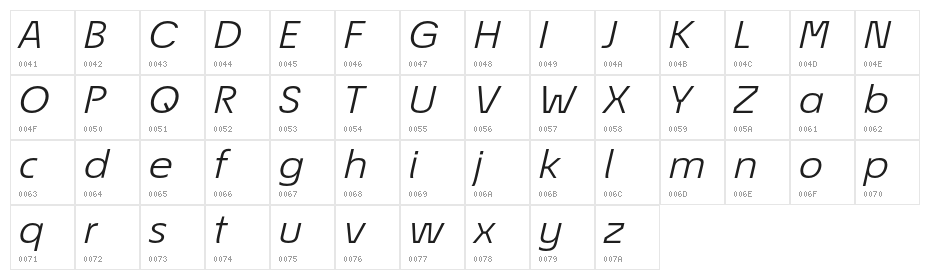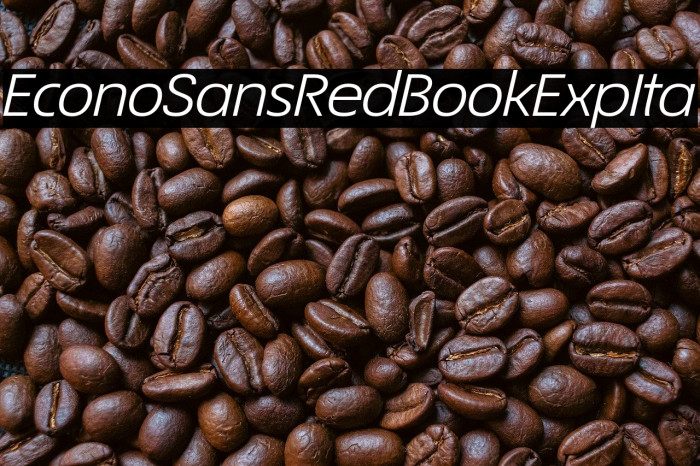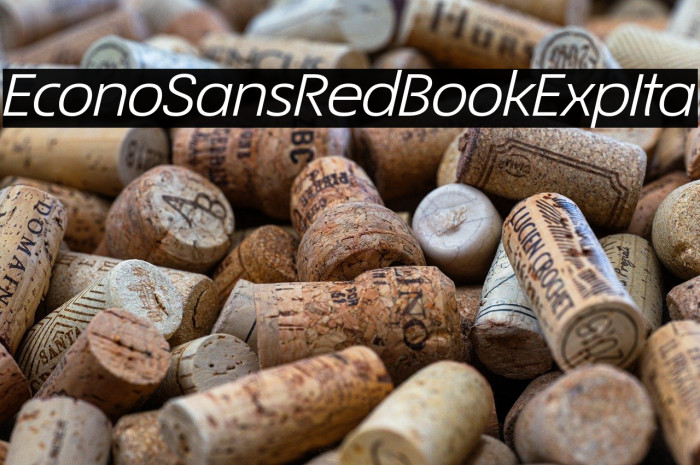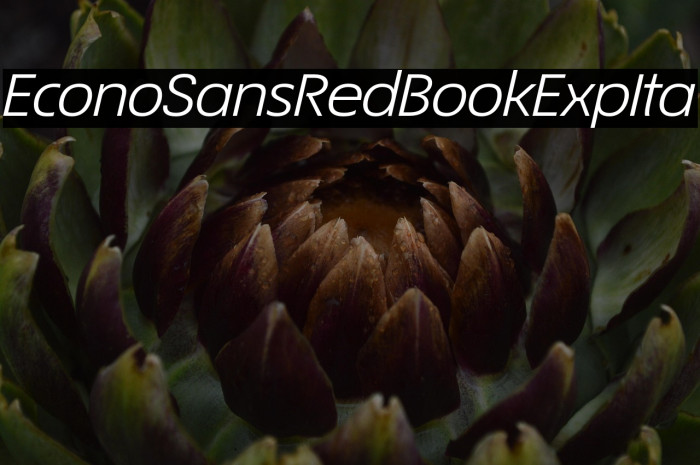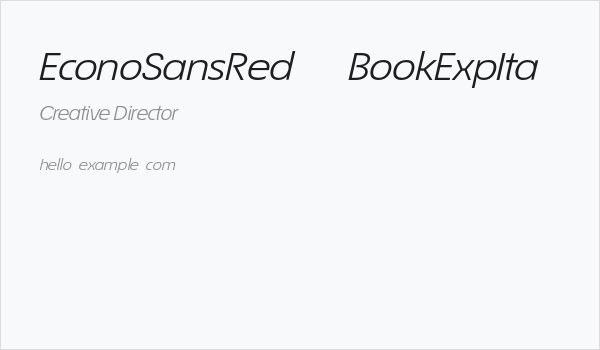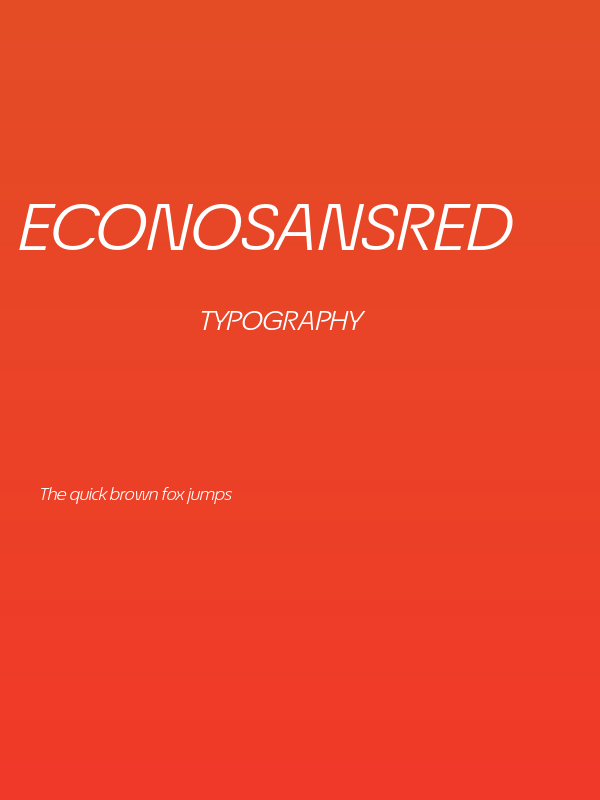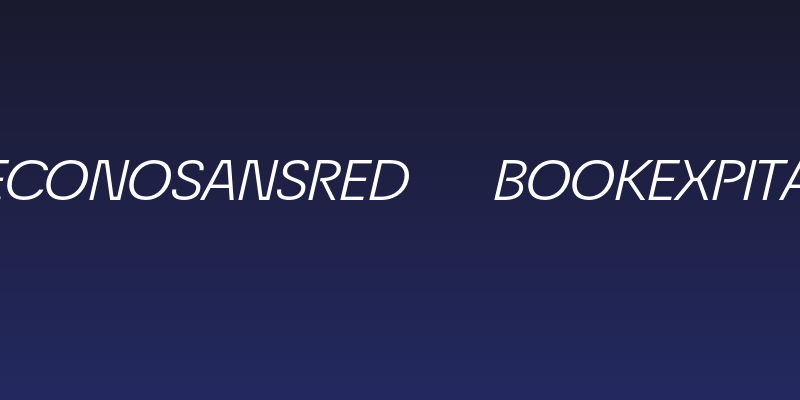
EconoSansRed-54BookExpIta Font
EconoSansRed-54BookExpIta Description
This font features a sleek, modern design with a sans-serif style. The characters are slightly italicized, giving them a dynamic and forward-leaning appearance. The strokes are consistent in thickness, providing a uniform look across all letters. The font has a clean and professional aesthetic, making it suitable for various applications. The spacing between characters is normal, ensuring readability while maintaining a compact form. Its expanded width allows for a more open and airy feel, enhancing its modern appeal.
| Proposed Projects | Ideal for branding, advertising, and digital media projects where a contemporary and professional look is desired. |